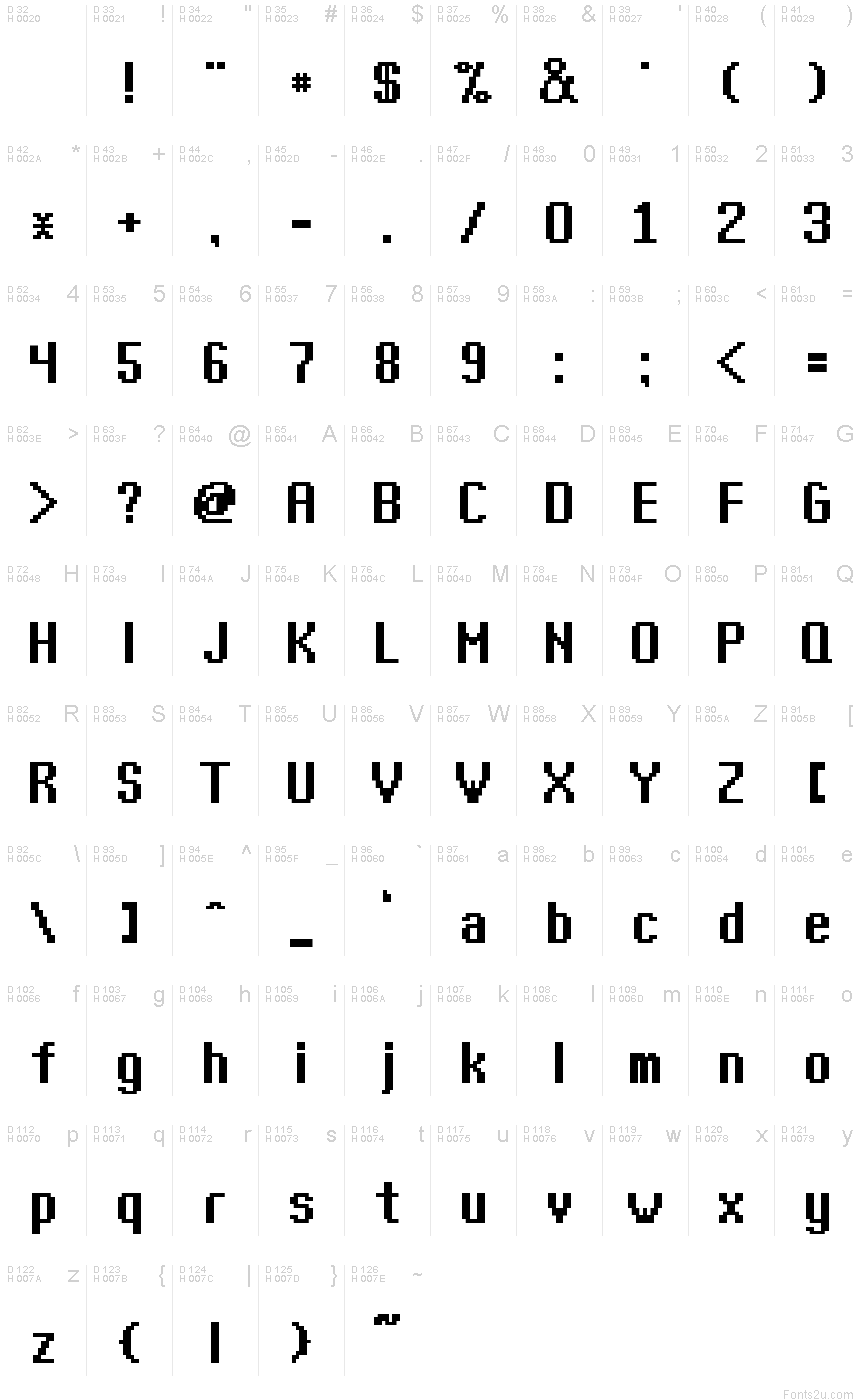
Kharon4a Bold
Kharon4a Bold font by Orgdot is a free pixel bitmap font. Its chunky, grid-locked shapes and abrupt right angles feel like they’ve been carved straight out of an 8‑bit screen, with tall, narrow letters that stack neatly and read clearly at small sizes. The rhythm is strict and mechanical, which gives every word a tight, digital pulse—great when you want text to feel sharp, minimal, and a bit mysterious.
Using Kharon4a Bold, you can push retro game menus, pixel-art posters, chiptune and synthwave covers, tech logos, stream overlays, and experimental zines into unapologetically low‑res territory. This free font shines when you keep it big and bold on dark backgrounds; pair it with a clean geometric sans for body copy to keep layouts readable while letting the bitmap texture carry the attitude.